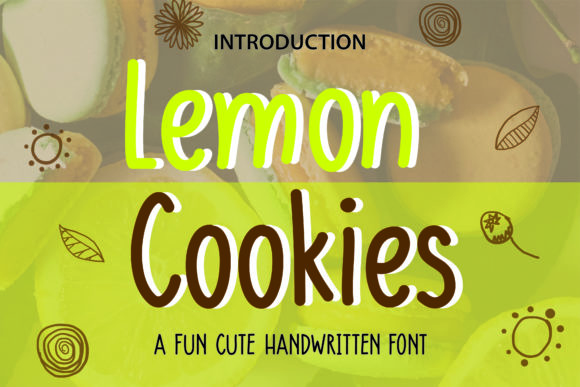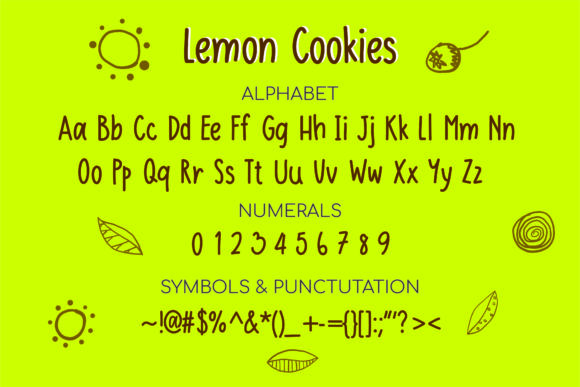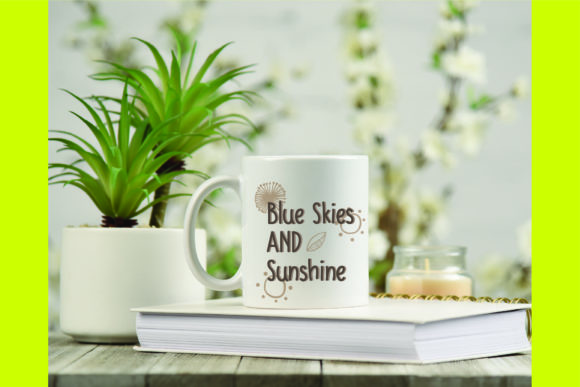
About Lemon Cookies Font
Lemon Cookies is a sweet and friendly handwritten font. Its natural and unique style makes it incredibly fitting to a large pool of designs. The only limit is your imagination!